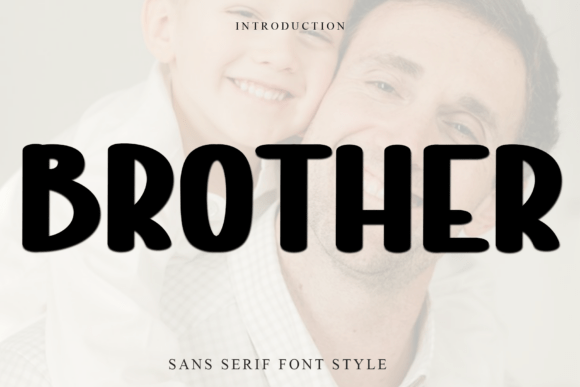
Discover the Charm of Brother Font: Elevate Your Designs with a Unique Touch
In the world of typography, fonts play a crucial role in conveying messages, expressing creativity, and capturing the audience’s attention. Among the numerous fonts available, Brother Font stands out with its soft, unique touch and distinctive strokes, making it a versatile and meaningful choice for various design projects. In this article, we’ll explore the characteristics, benefits, and applications of Brother Font, and why it’s becoming a favorite among designers and crafters.
The Unique Characteristics of Brother Font
Brother Font is a beautifully crafted font, designed to add a special character to your designs. Its soft and unique touch sets it apart from other fonts, making it perfect for creative projects that require a personal touch. The font’s distinctive strokes give it a natural and organic feel, making it suitable for a wide range of applications, from crafts to digital designs.
One of the notable features of Brother Font is its versatility. With a variety of characters, you can experiment with different styles and expressions, making it an excellent choice for designers and crafters who want to add a personal touch to their work. Whether you’re creating a logo, brochure, or social media graphics, Brother Font is sure to make your designs stand out.
Benefits of Using Brother Font
So, what makes Brother Font an attractive choice for designers and crafters? Here are some benefits of using this beautiful font:
• Versatility: Brother Font is suitable for various design projects, including crafts, digital designs, and print materials.
• Unique Touch: The font’s soft and unique touch adds a personal touch to your designs, making them more engaging and memorable.
• Distinctive Strokes: The font’s distinctive strokes give it a natural and organic feel, making it perfect for designs that require a human touch.
Applications of Brother Font
Brother Font is an excellent choice for various design projects, including:
• Crafts: Use Brother Font to add a personal touch to your handmade crafts, such as cards, invitations, and scrapbooking.
• Digital Designs: The font is perfect for digital designs, including social media graphics, blog posts, and website headers.
• Print Materials: Use Brother Font for print materials, such as brochures, flyers, and posters.
• Logo Design: The font’s unique touch and distinctive strokes make it an excellent choice for logo design.
Why Choose Brother Font?
With so many fonts available, why choose Brother Font? Here are some reasons why Brother Font is an excellent choice for designers and crafters:
• Enhance Your Designs: Brother Font will elevate your designs, making them more appealing to a wide range of audiences.
• High-Quality: Brother Font is a high-quality font, designed to deliver exceptional results in various design projects.
In conclusion, Brother Font is a beautiful and versatile font, perfect for designers and crafters who want to add a unique touch to their work. With its soft and unique touch, distinctive strokes, and compatibility with various applications, Brother Font is an excellent choice for a wide range of design projects. Whether you’re creating crafts, digital designs, or print materials, Brother Font is sure to elevate your designs and make them more engaging and memorable.